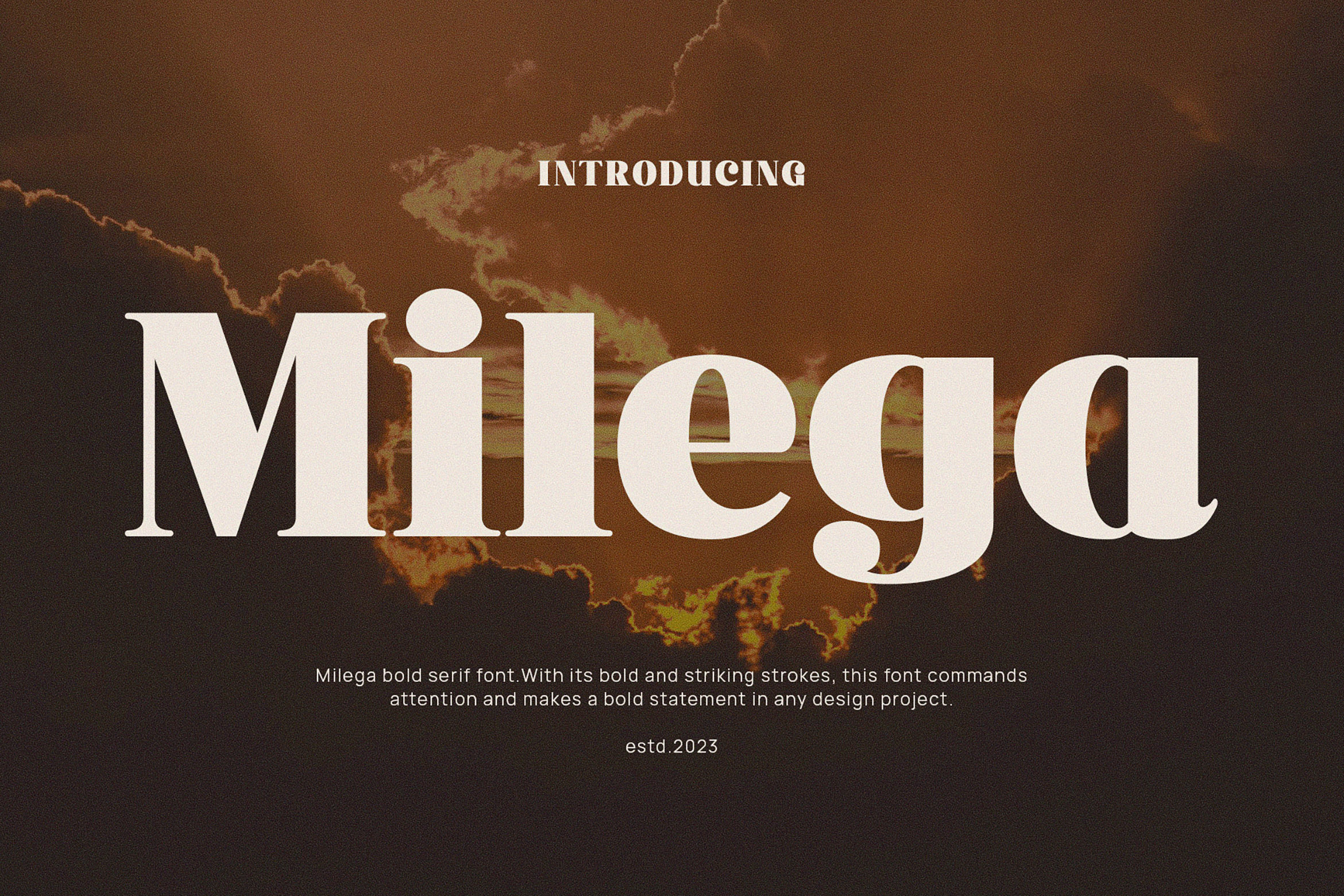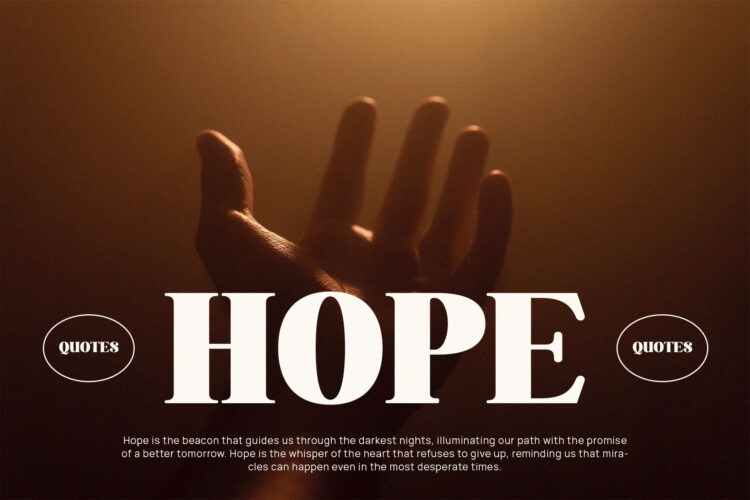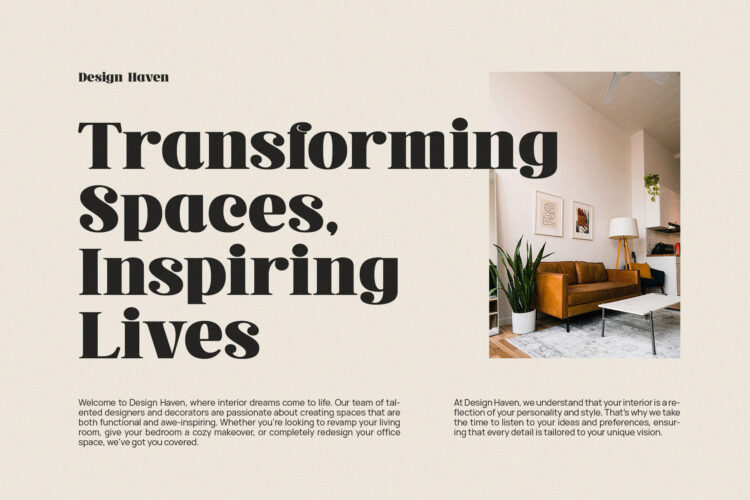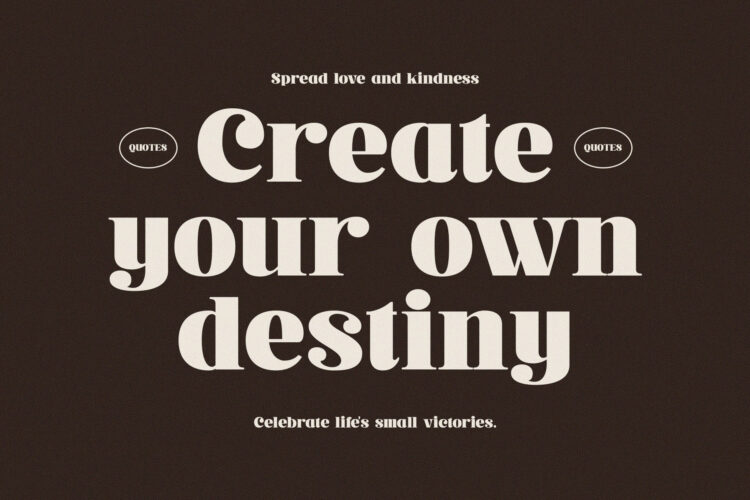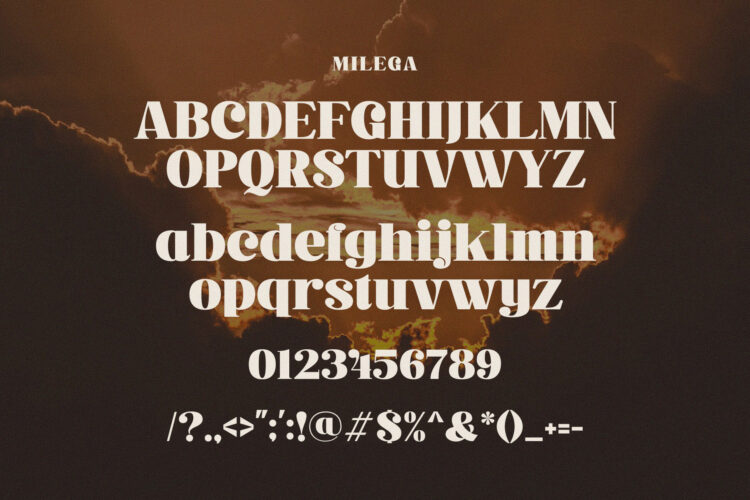
Introducing our new Milega, modern serif font with elegant style this is perfect for branding, logos, invitation, magazines, product packaging and more.
Milega – Stylish Bold Serif